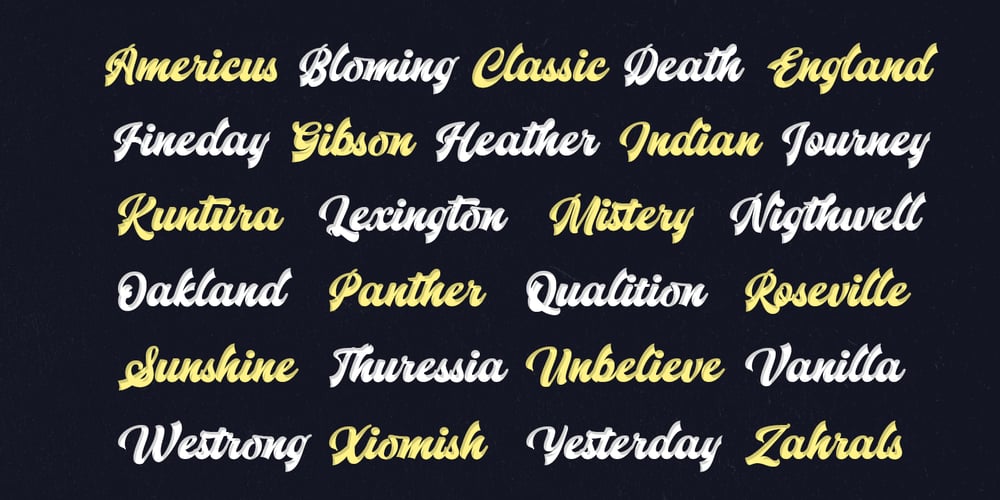
Sandoval
Sandoval font
Sandoval Font Family was designed by Akmal Yusar and published by Picatype. Sandoval contains 2 styles and family package options. Sandoval Script is a handmade script font with clear style and creative projects such as logos, printed quotes, invitations, cards, product packaging, headers, logos, letterhead, posters, clothing designs, labels,as you can use the illustrative qualities of the shapes to create an art piece. Sandoval Script come with uppercase letters, lowercase letters, numbers, punctuation, and so many variations on each character including alternative opentype, general binder, and a very useful set of Swash bonuses. It’s fun to use because each word can be transformed to you like. Sandoval Script is coded with PUA Unicode, which allows full access to all the extra characters without having special designing software. Mac users can use Font Book , and Windows users can use Character Map to view and copy any of the extra characters to paste into your favourite text editor/app. Thanks so much for looking and please let me know if you have any questions.